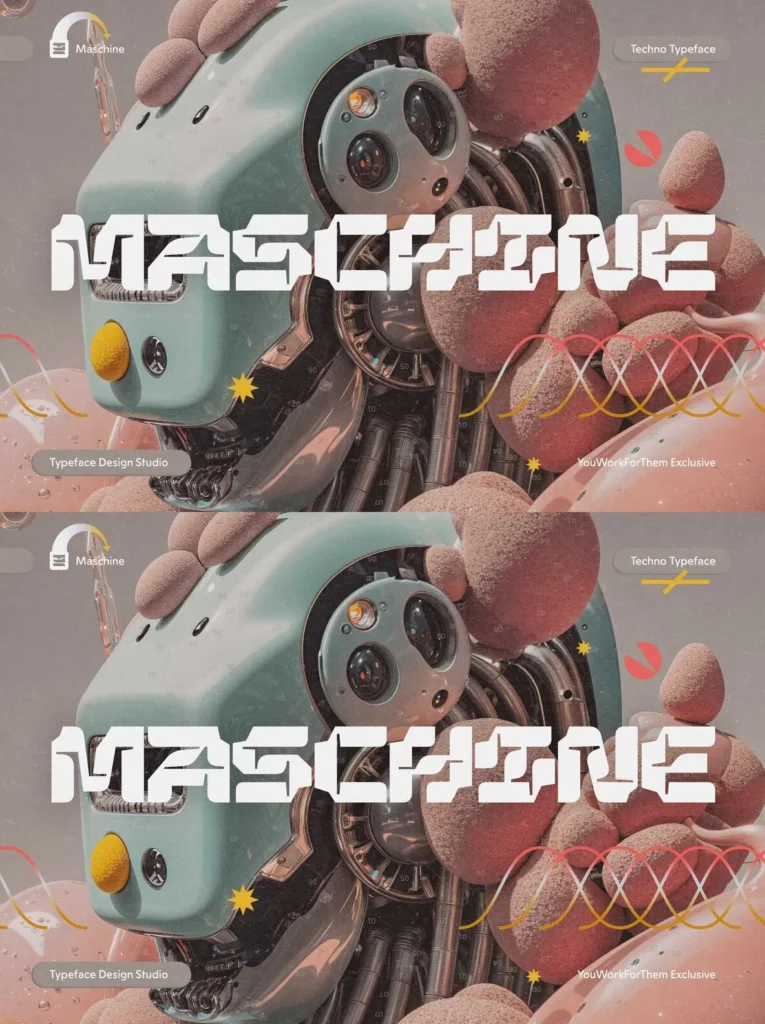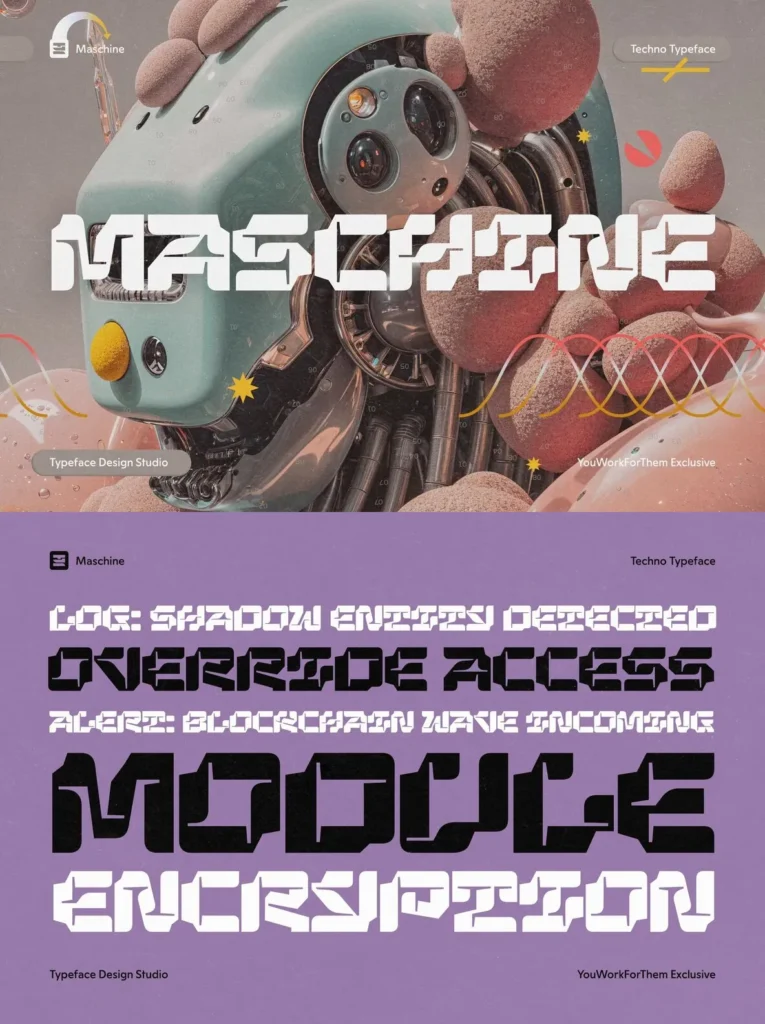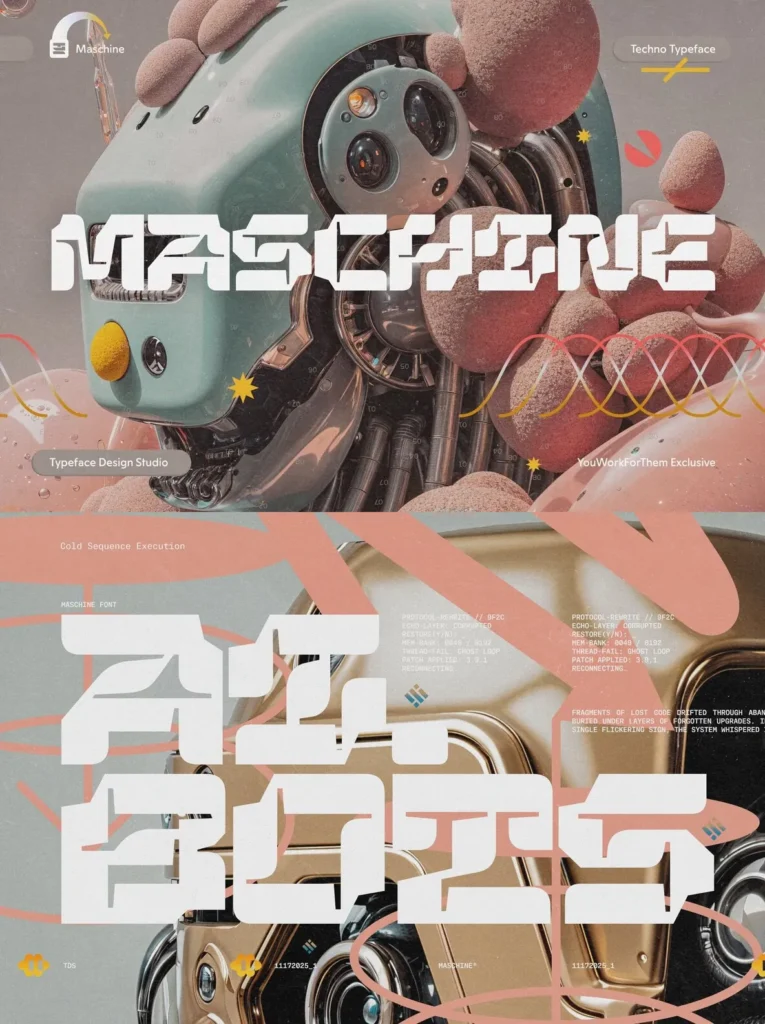
Maschine Font
Maschine: Cyberpunk Aesthetic Meets Gaming Typography
Maschine reflects the modern cyberpunk spirit, characterized by its angular cuts, beveled facets, and seamless transitions that form bold, industrial blocks. While its structure remains consistent, Maschine thrives with glitch-inspired aesthetics, successfully embodying databend textures and scanline overlays. When showcased on posters or title cards, it echoes the sensation of a system booting under neon lights.
Maschine is designed strictly for headlines, cover art, and hero panels, offering a striking presence in large formats. Though not apt for body text or UI microcopy, it retains its form with bold effects, making it perfect for dynamic content such as game trailers and stream intros.
Appeal to Game Studios
Futuristic style without resorting to stereotypes.
Geometric strength that stands out amid VFX and textures.
Engineering-inspired forms blending square and rounded shapes.
Strong readability from afar, distinct personality up close.
Essential Features
Approximately 200 glyphs tailored for standard English typesettings.
Emphasizes capital letters with numerals and essential punctuation.
Suggested Applications
Game key art, HUD headers, faction logos, launcher screens.
Tech brand initiatives, launch posters, limited campaign releases.
Social media thumbnails optimized for bold, geometric appeal.
Music visuals, including covers, tour promotions, and live screens.
Creative Insights
Maschine shines in contrast. Pair it with subtle grotesque or
monospaced
subheads, complemented by sharp lighting, metallic surfaces, and low-bit effects. Adding motion blur and chromatic aberrations enhances its near-future appeal. Opt for concise text, allowing its form to captivate.